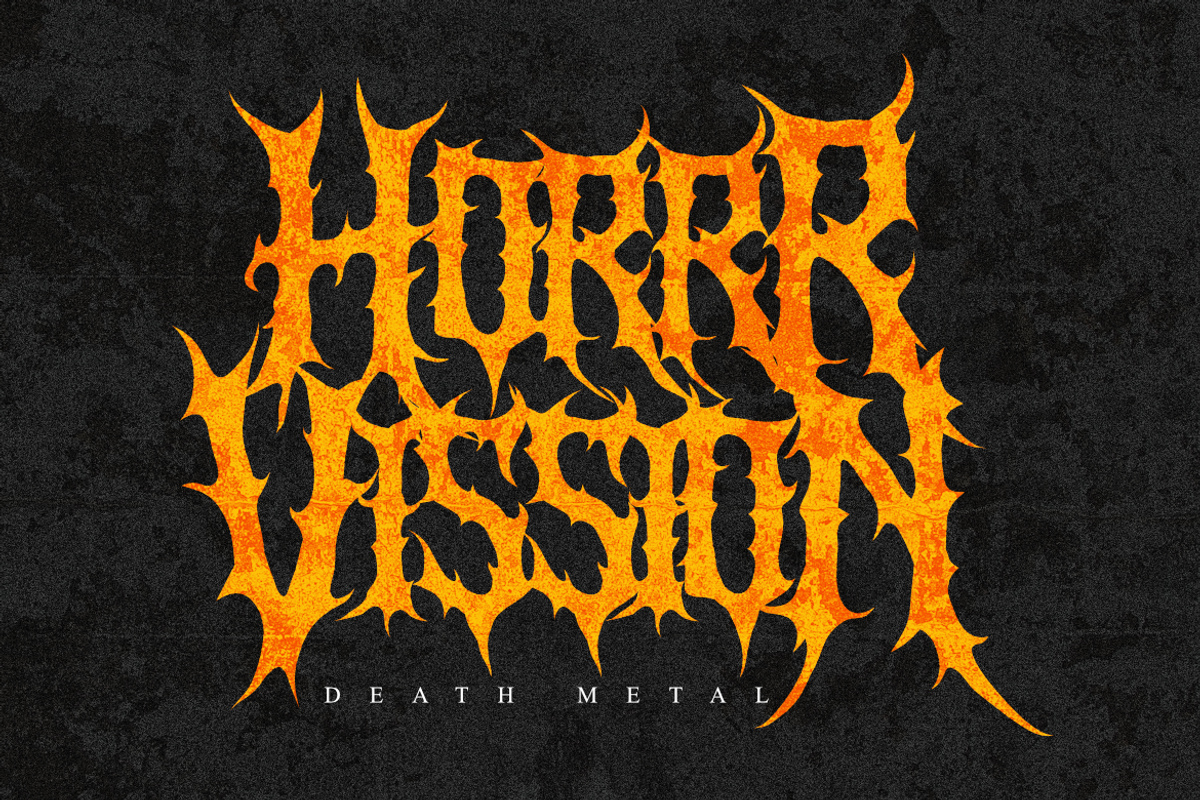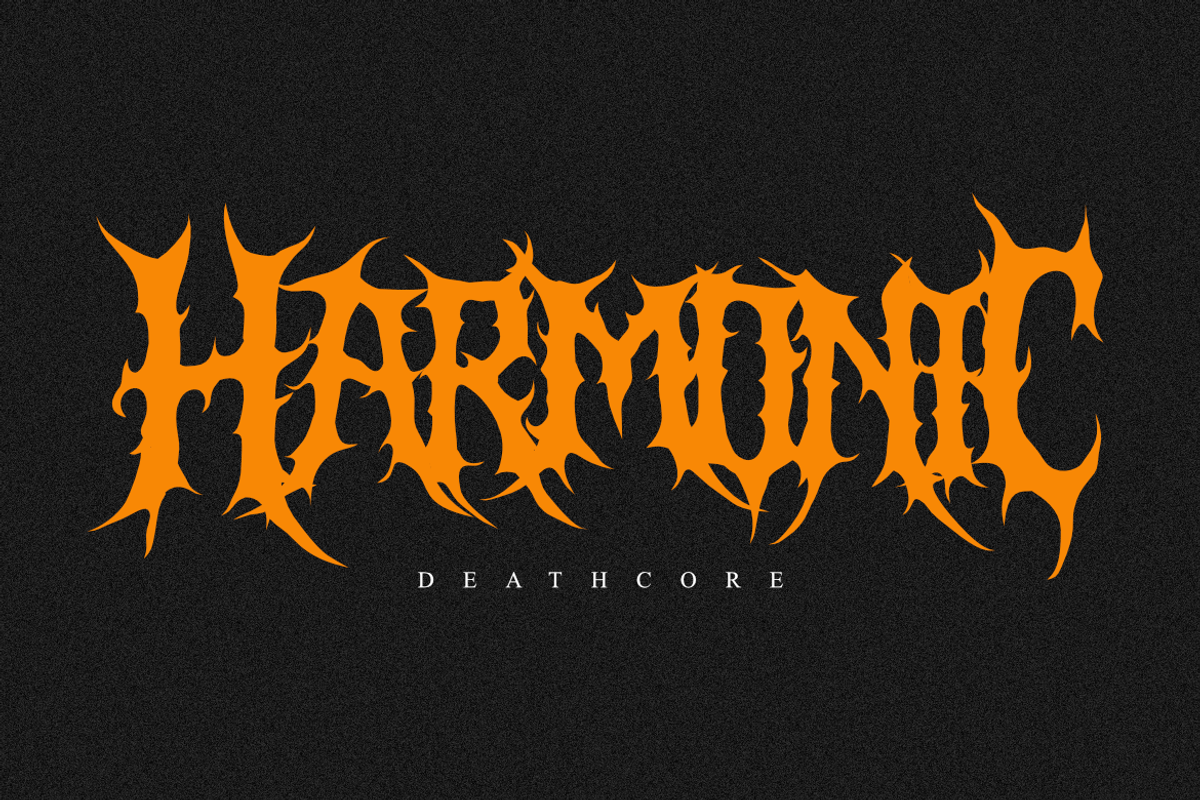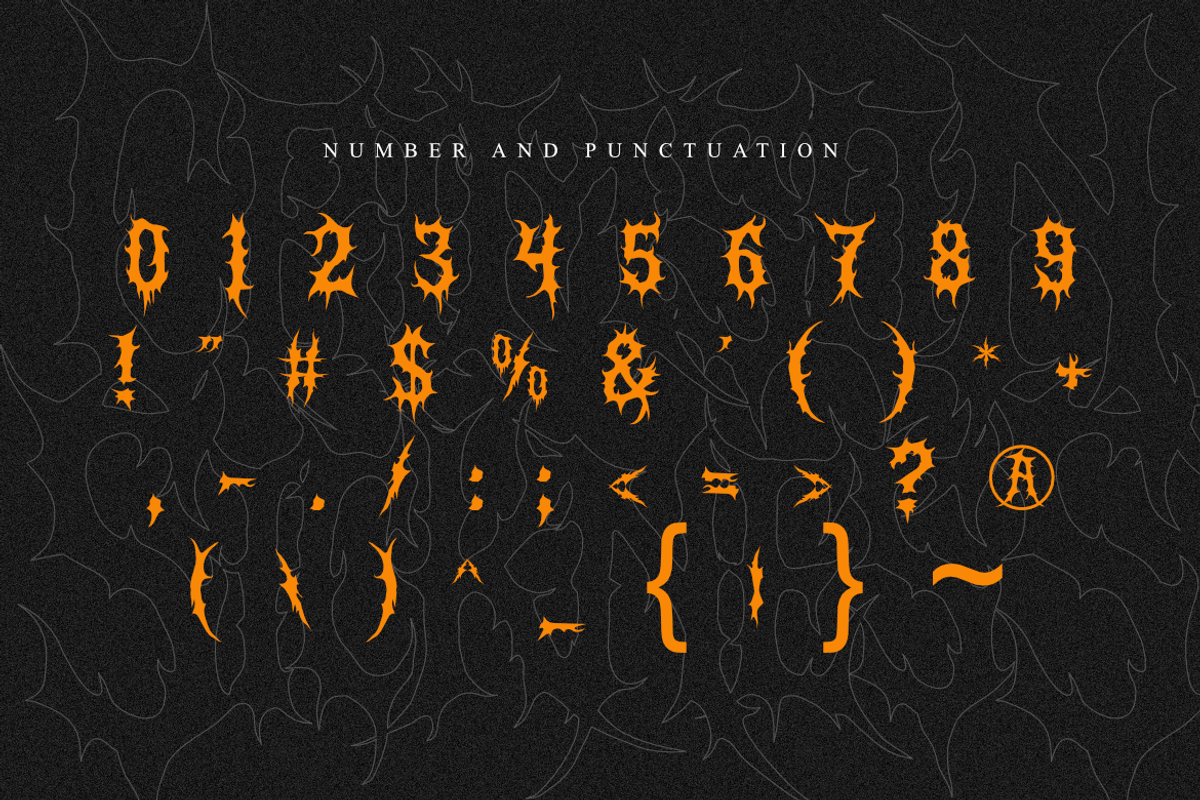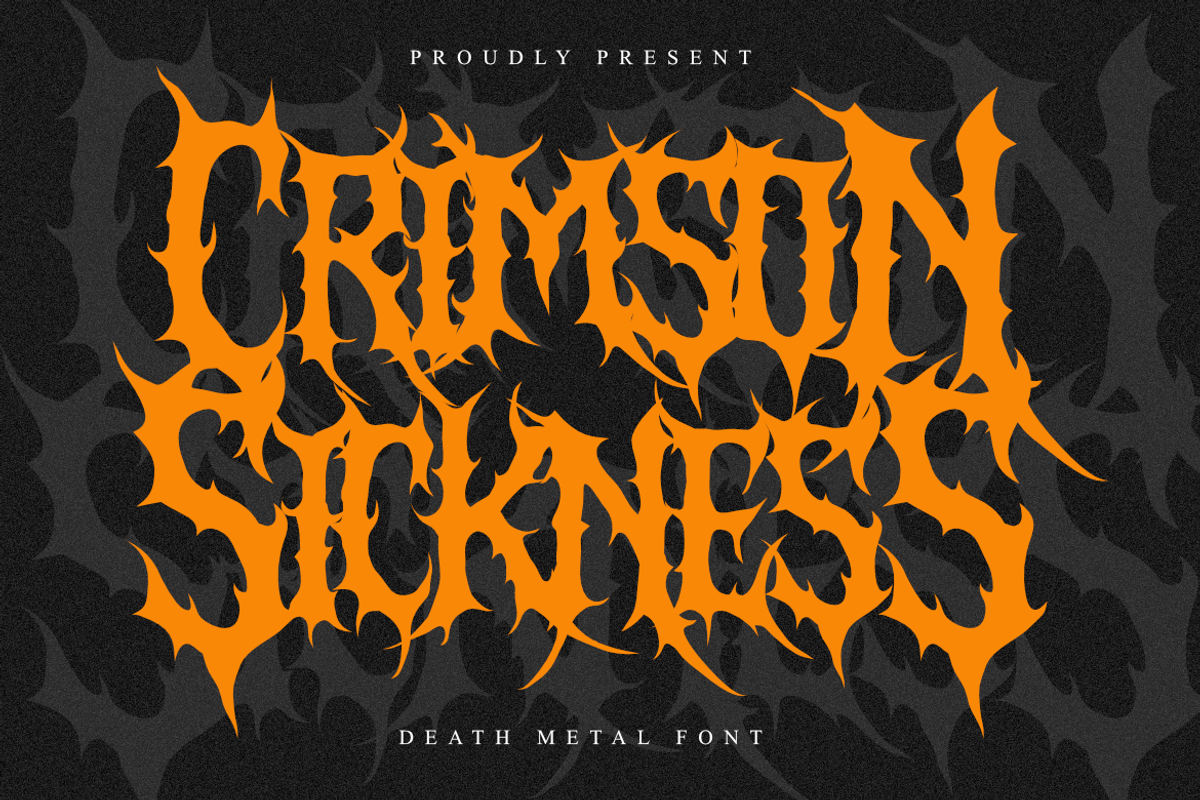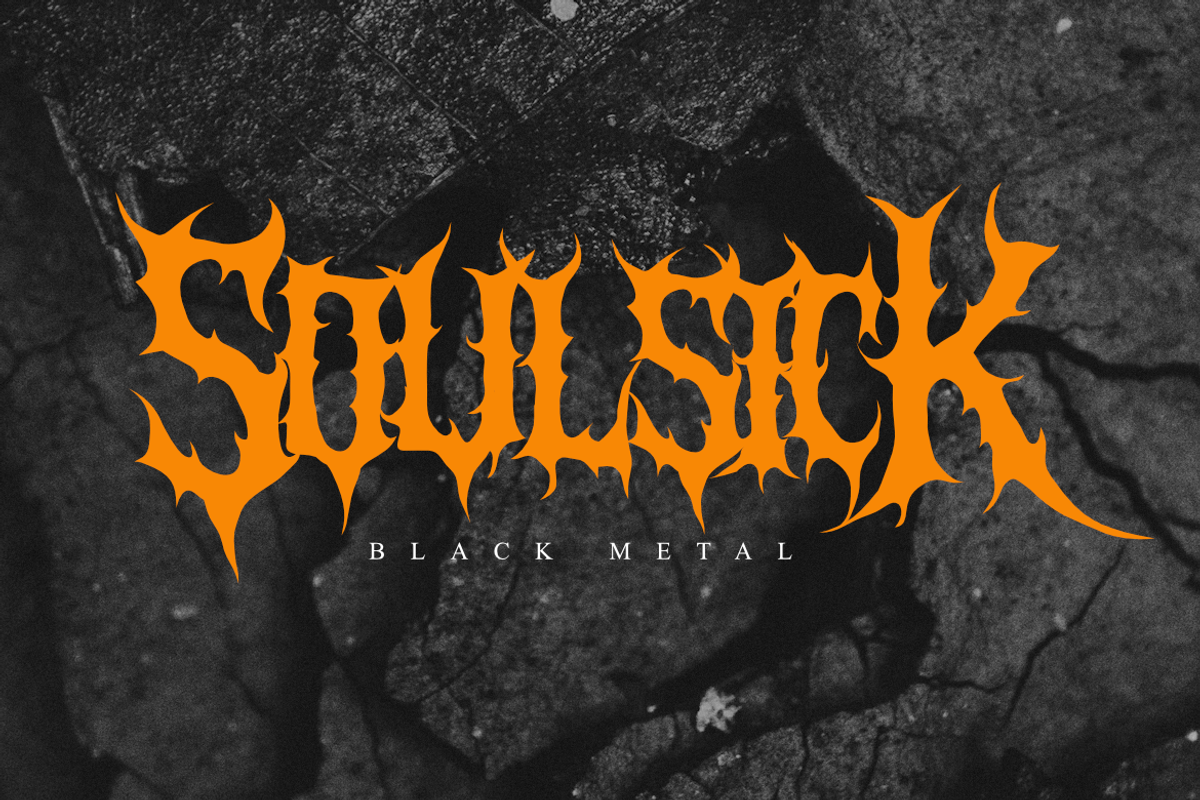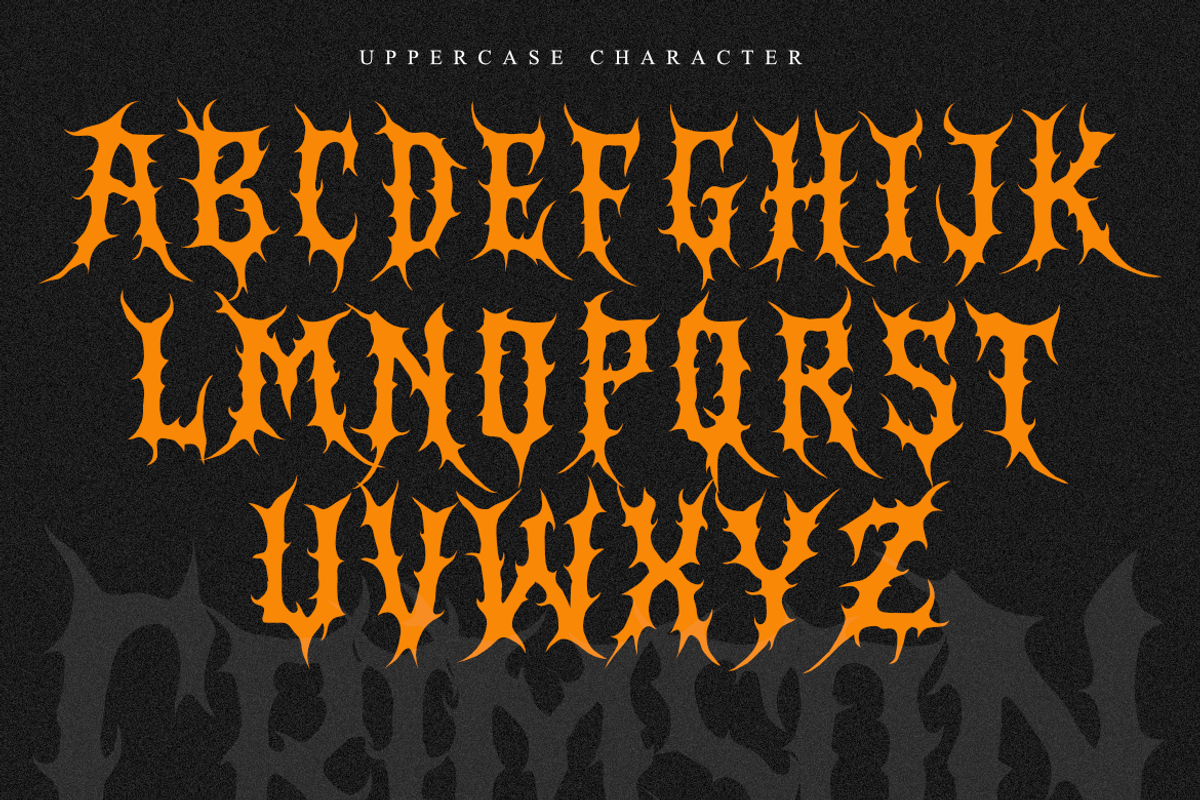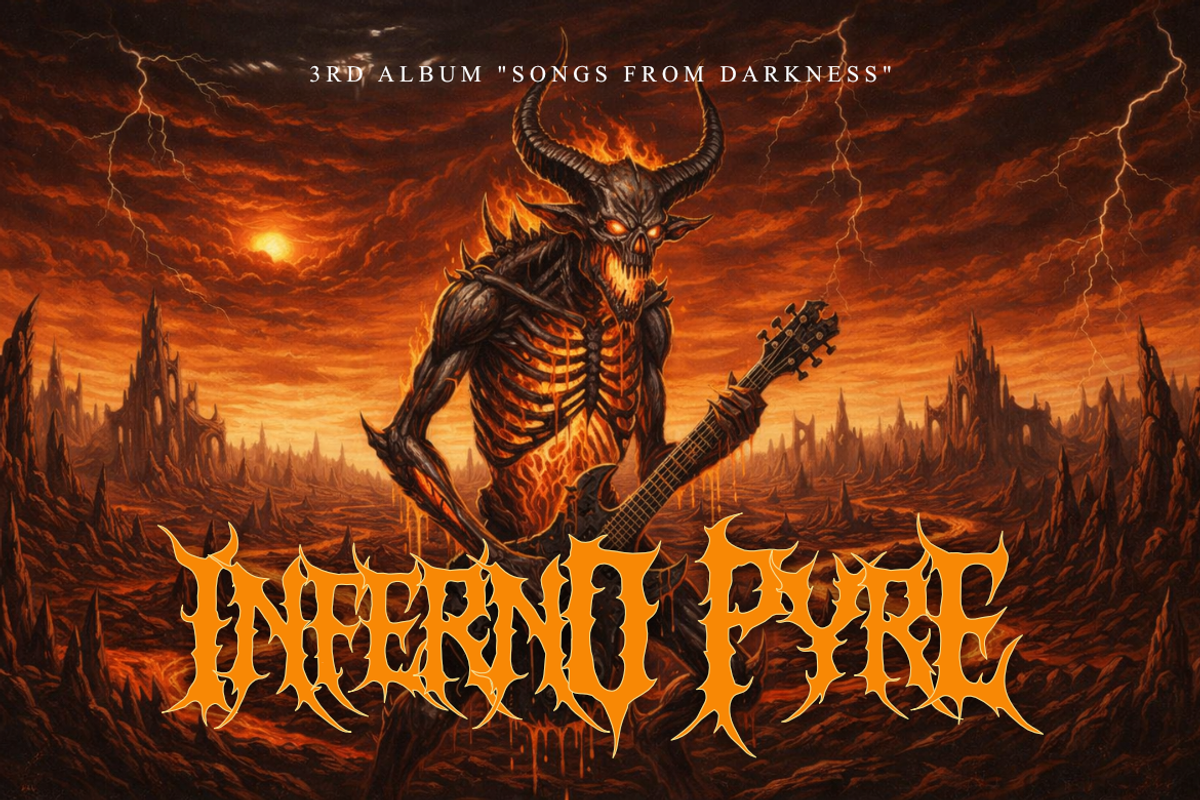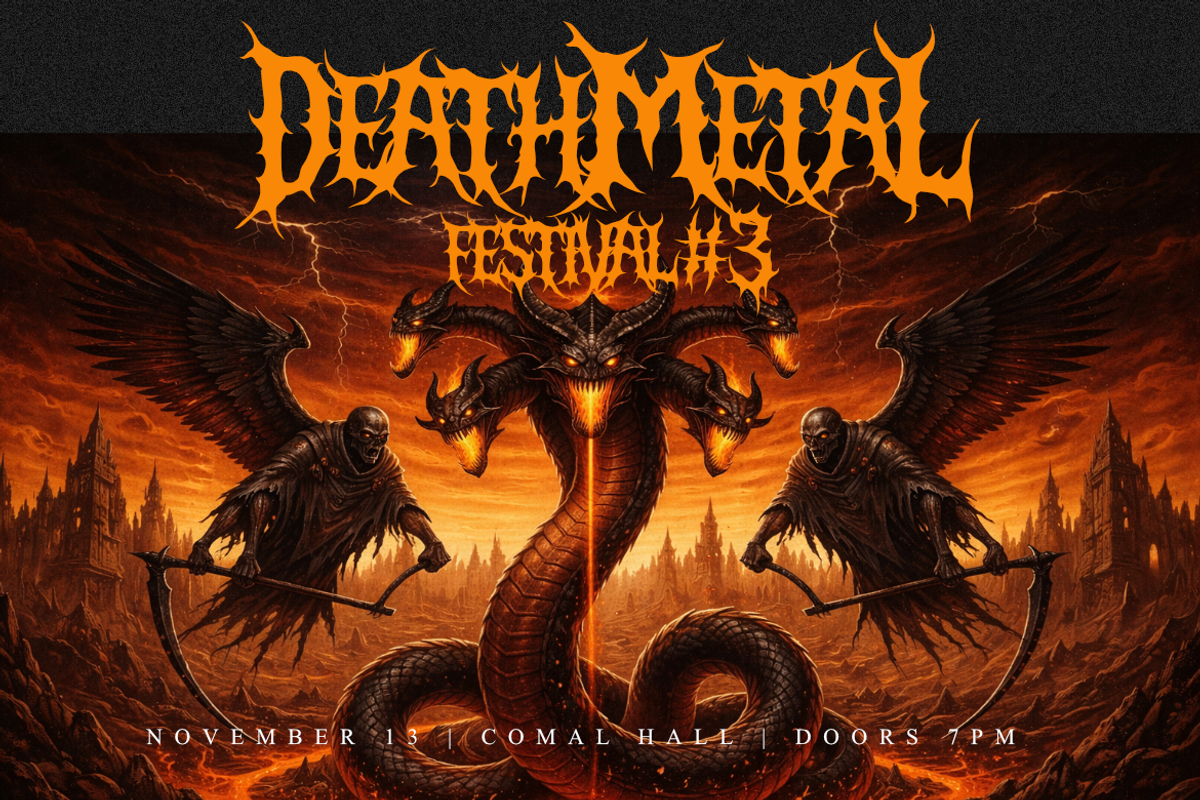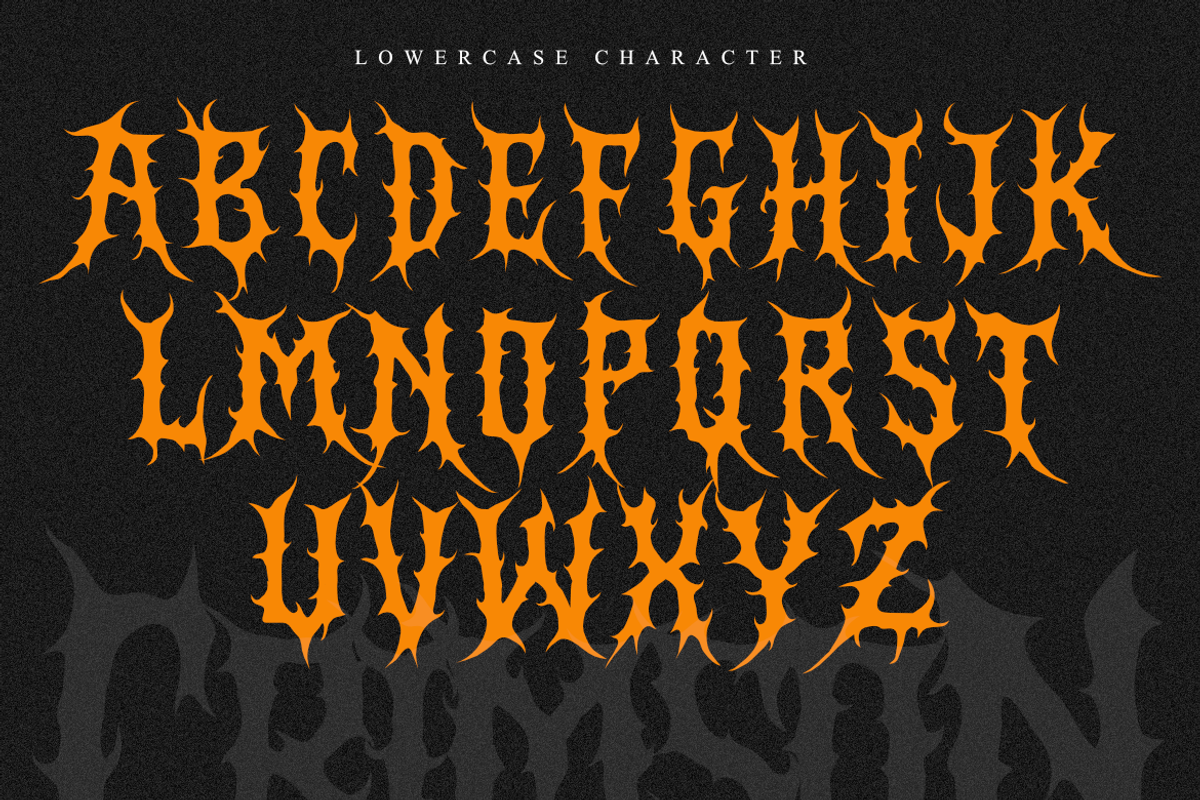
Crimson Sickness | Death Metal
Infuse your projects with pure aggression using Crimson Sickness, a death metal font designed for maximum impact. This typeface captures the essence of underground extreme music, featuring jagged, thorn-filled characters that interlock to create a formidable wall of text.
Crimson Sickness is the ultimate tool for designers working on band identities, heavy metal album covers, and gritty streetwear lines. Its organic yet sharp silhouette ensures that your brand stands out with a dark, professional, and unyielding aesthetic.